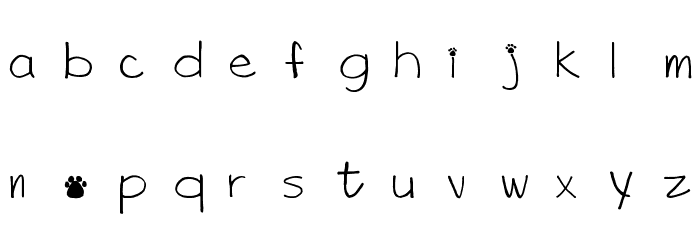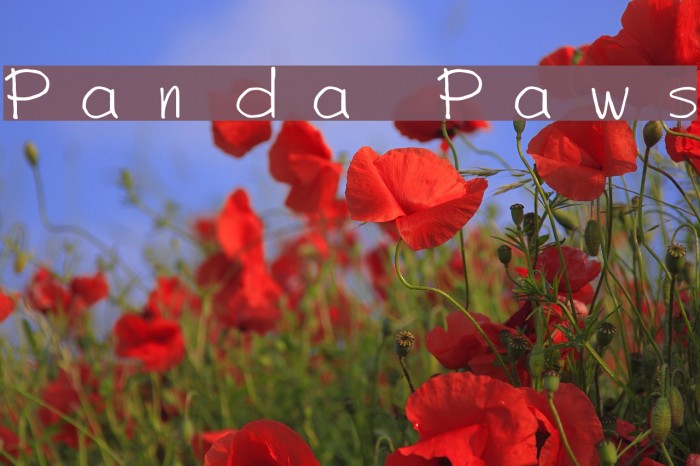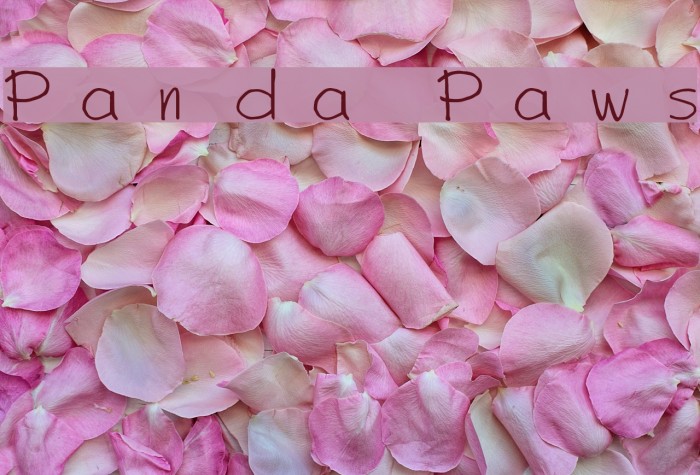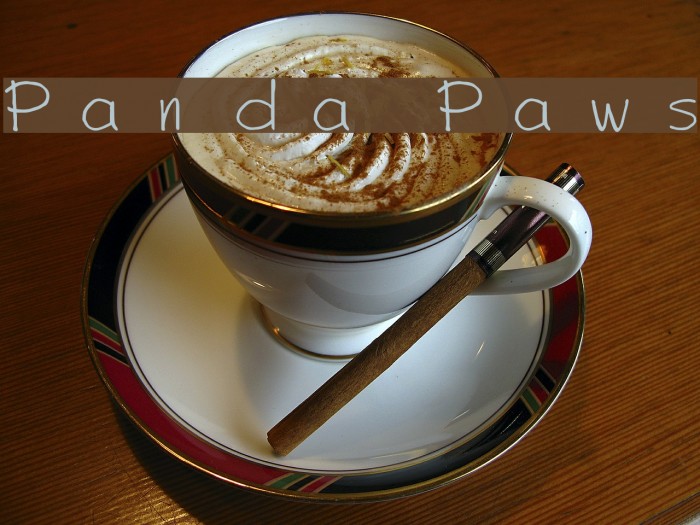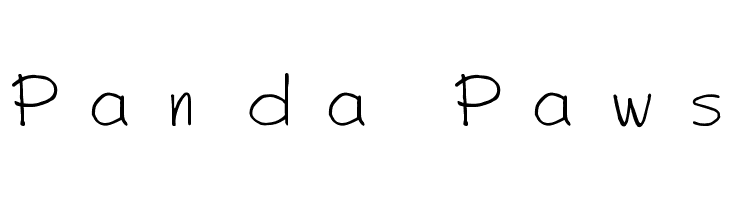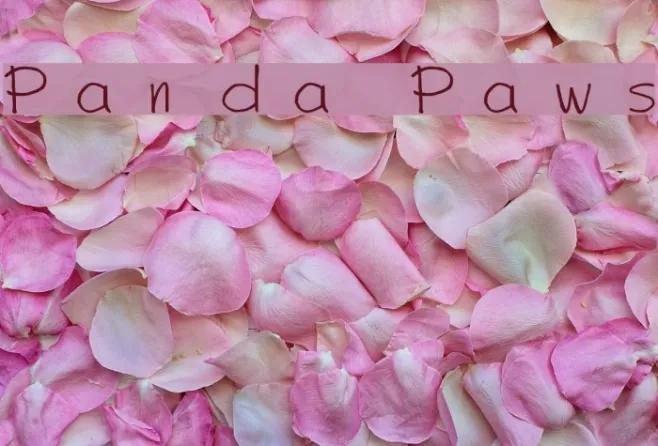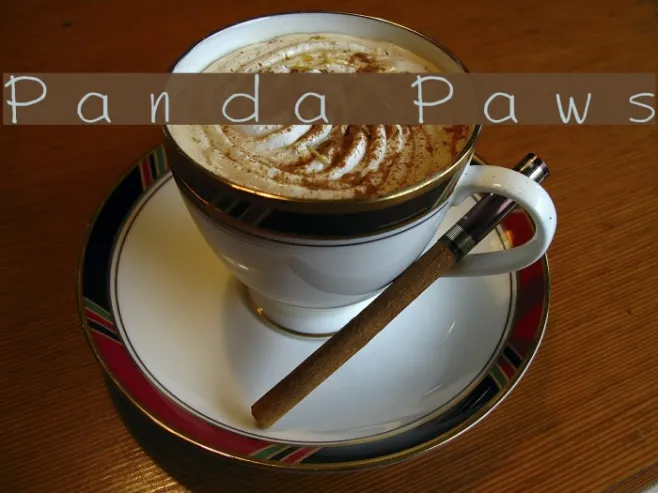
Panda Paws Font
This playful and whimsical font features a unique design where certain letters incorporate panda paw prints, adding a touch of charm and creativity. The overall style is casual and friendly, with a handwritten feel that makes it approachable and fun. The uppercase and lowercase letters are slightly irregular, enhancing the informal aesthetic. The font includes a full set of letters, numbers, and special characters, each maintaining the playful theme. The use of paw prints in place of some letters adds a distinctive character, making it ideal for projects that require a lighthearted and engaging tone.
A playful, handwritten font with panda paw prints incorporated into some letters.
- Proposed Projects: Ideal for children's books, playful branding, pet-related products, and casual invitations.
- Use Case: Logos, Invitations, Children's materials